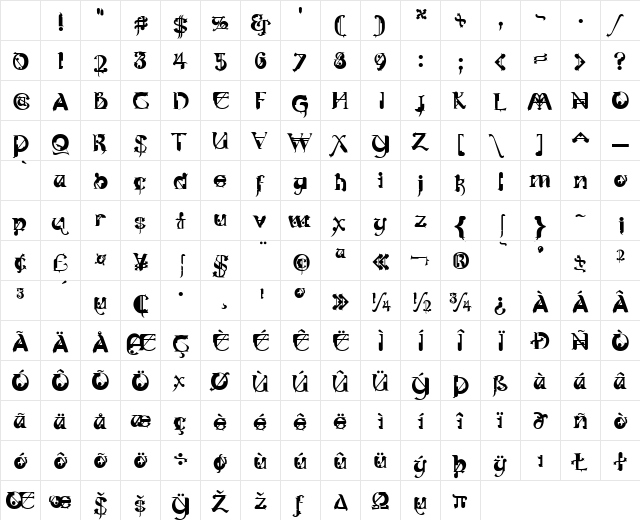
Complete GargoilICG Medium glyph index. Displaying only characters natively supported by GargoilICG Medium font.
GargoilICG is a composed and adaptable typeface that performs quietly and consistently across a wide range of design contexts.